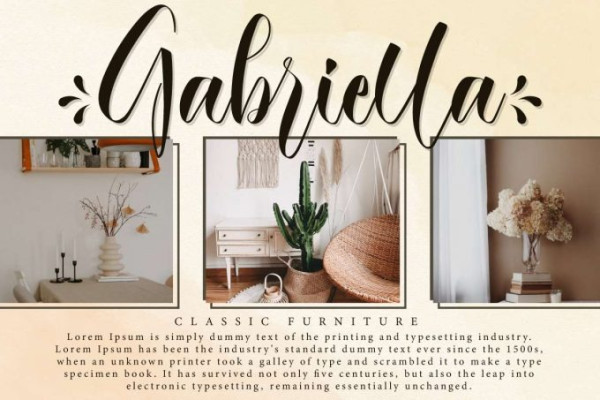
Outhandle Font
Outhandle Font is a calligraphy script font with beautiful style. When you look at this font, you will feel the beauty that invites you to immediately use this font. It will be suitable for many industries, such as advertisement, bakery, beauty product, café, fashion, florist, furniture, jewelry, perfume, printing, publishing, skincare, spa, wedding organizer, and more!
Outhandle Font includes full set of Uppercase and Lowercase Basic Characters, Numerals and Punctuation. Also it contains Ligature and Swoosh characters to make it catchy and add more aesthetic fonts to your extraordinary project, such as brand logo, brochure, catalog, custom design, frame art, invitation, label, packaging design, poster, quote, screen printing, stationery, website, etc.